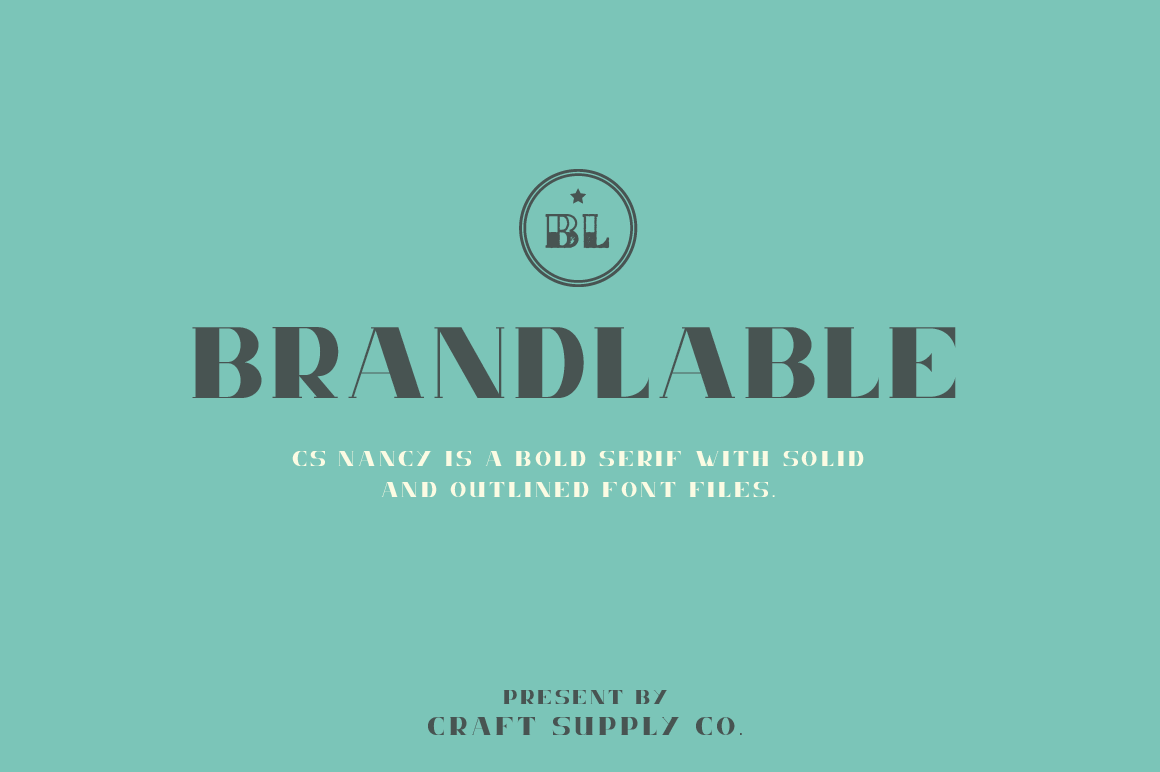
CS Nancy Font Family
Introducing CS Nancy Font Family includes 6 Style Fonts. is an elegan serif font where it can be used to create almost all types of design projects like print materials. Just use your imagination and your project will become more alive and vivid than ever with one of the CS Nancy Font Family.
You want to make a greeting card or a package design, or even a brand identity, craft design, any DIY project, book title, wedding font, pop vintage design, retro design or any purpose to make your art / design project look pretty and trendy? Feel free to play with all the patterns and shape!
- CS Nancy Regular
- CS Nancy Halfblock
- CS Nancy Halfblock Rough
- CS Nancy Inner
- CS Nancy Line
- CS Nancy Outline
- Bonus CS Nancy Preview